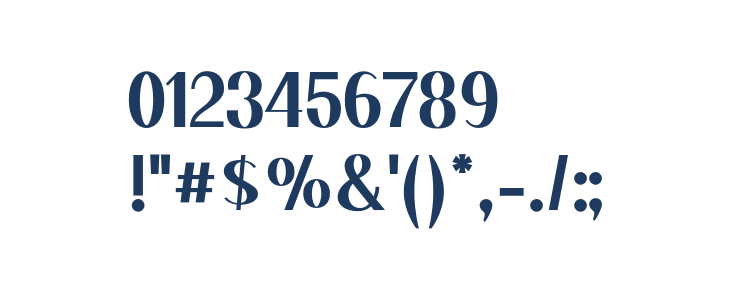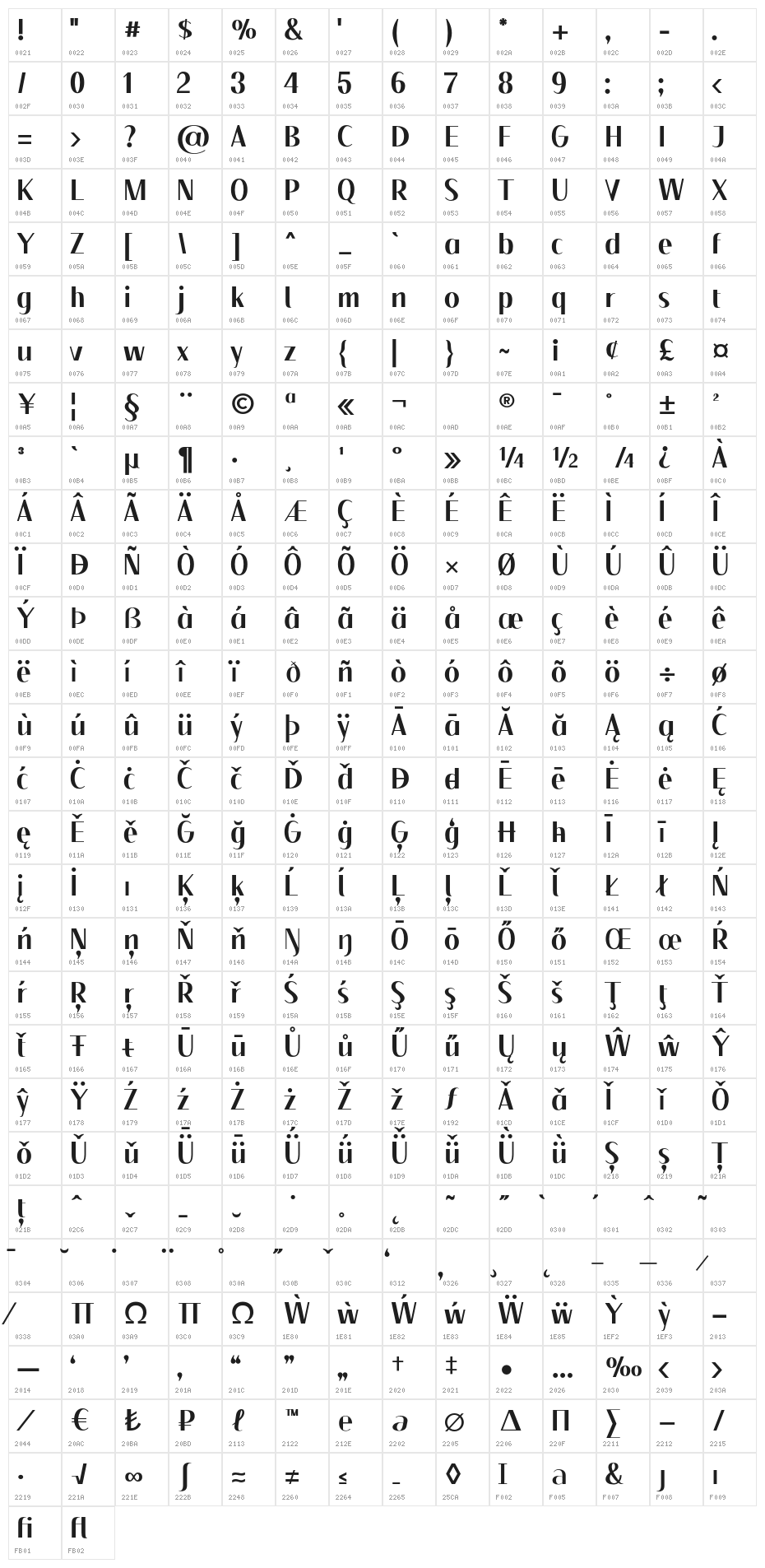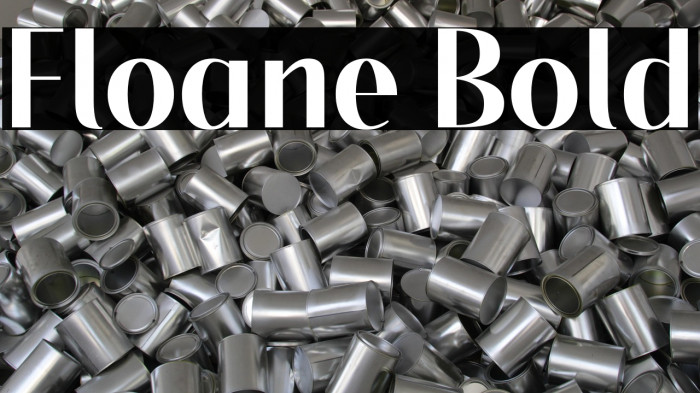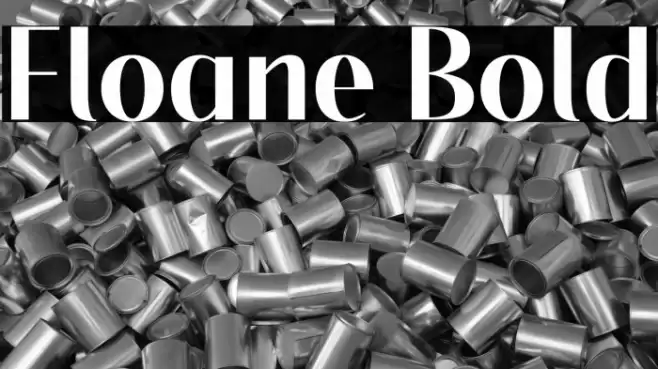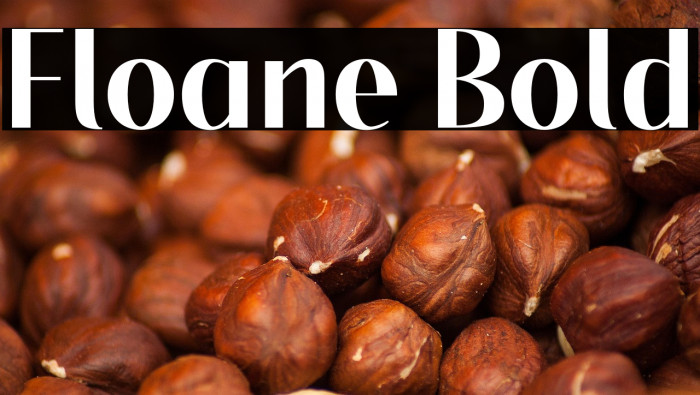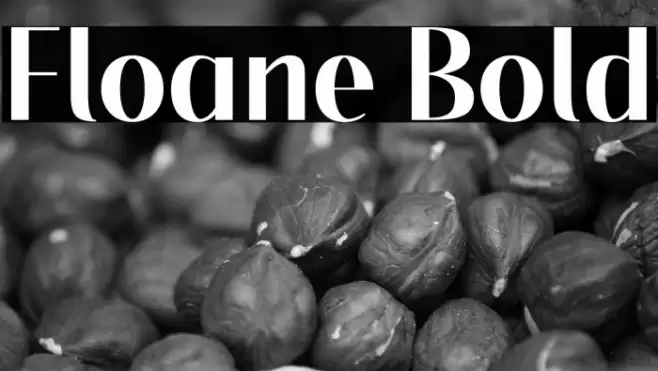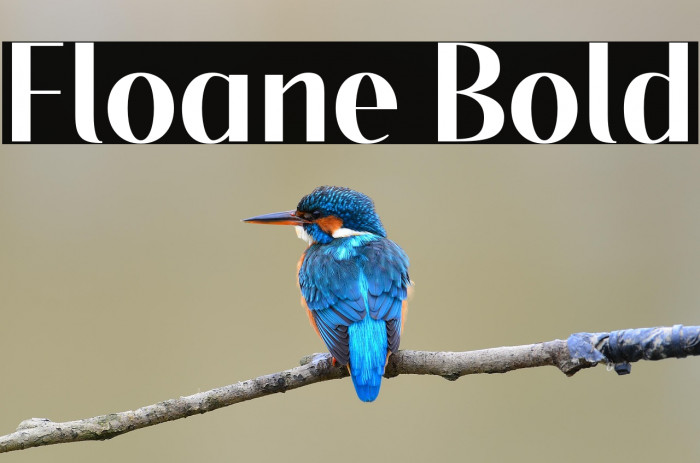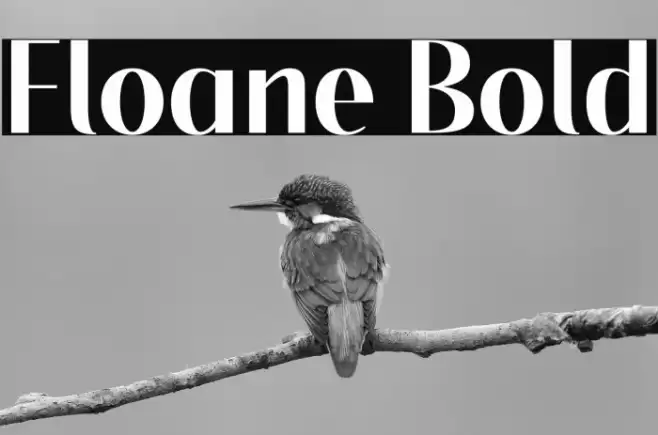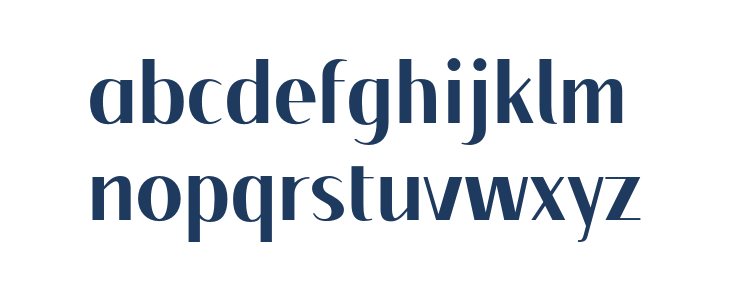
Floane Bold Font
Floane Bold Description
This font features a bold and striking appearance, characterized by its high contrast between thick and thin strokes. The uppercase letters are tall and commanding, while the lowercase letters maintain a consistent and harmonious flow. The numerals are clear and easily distinguishable, making them suitable for various applications. The special characters are well-designed, complementing the overall aesthetic. This font's style is both modern and classic, offering versatility for different design needs.
| Proposed Projects | Ideal for branding, headlines, posters, and editorial design where a strong visual impact is desired. |